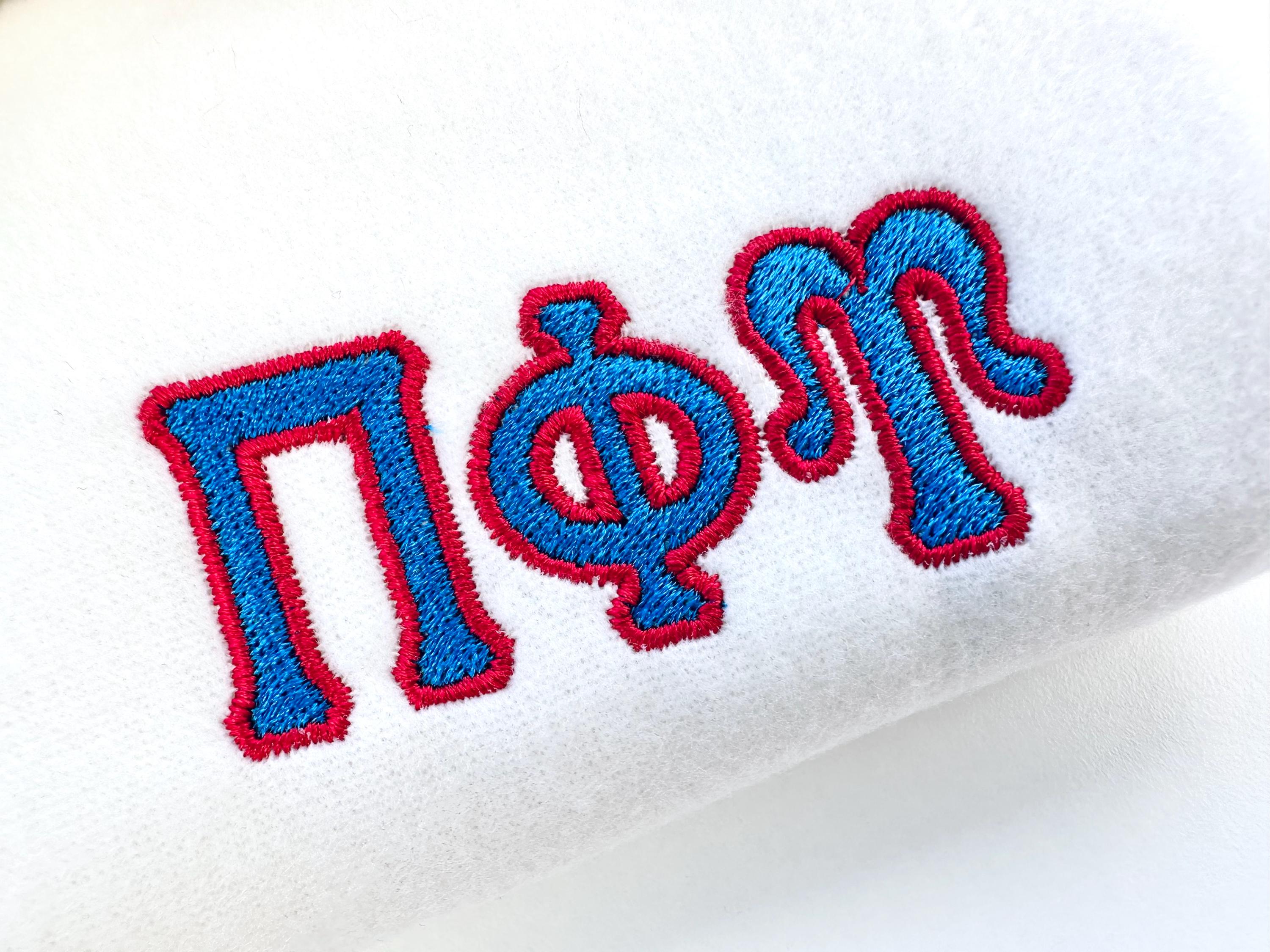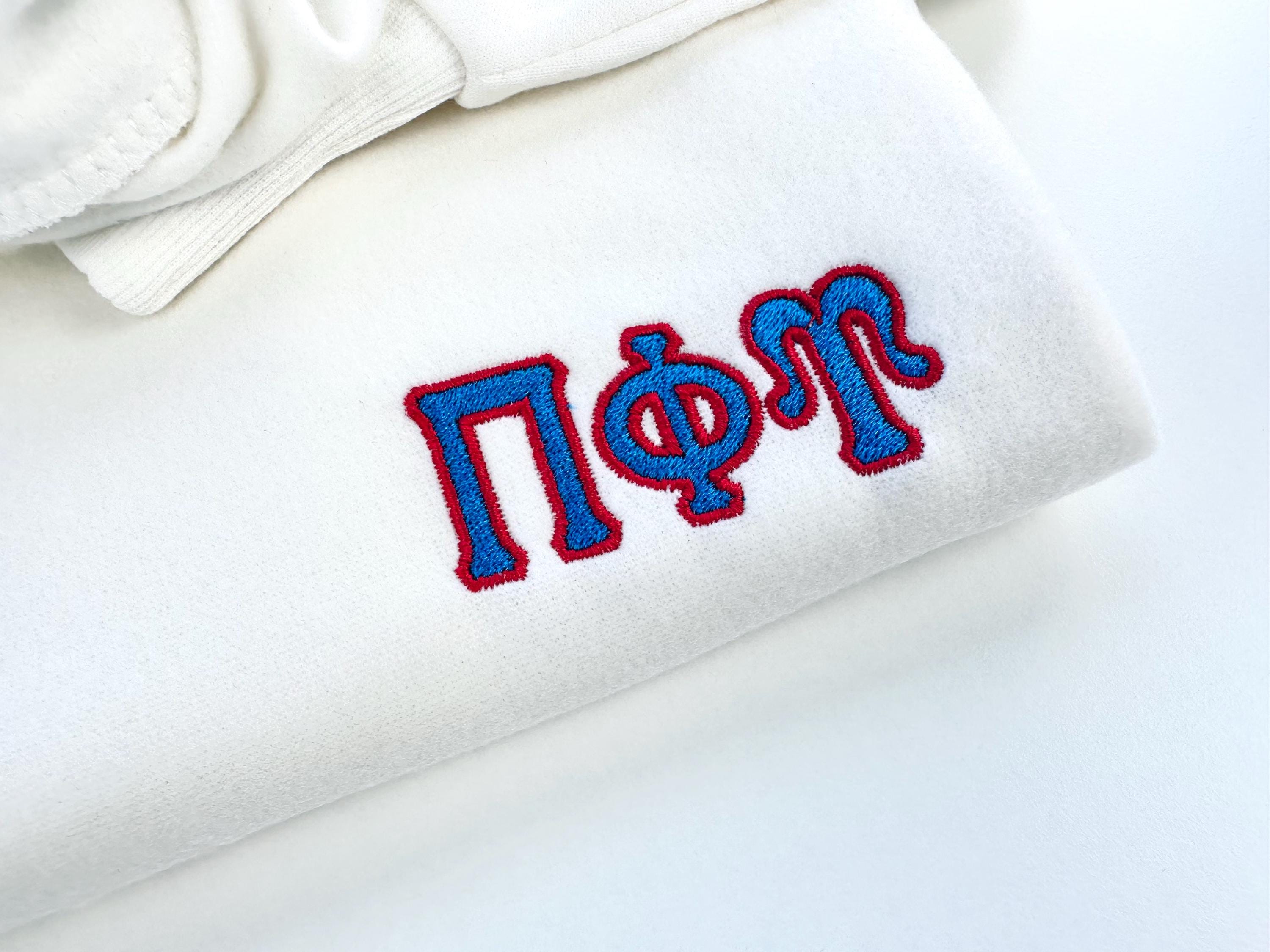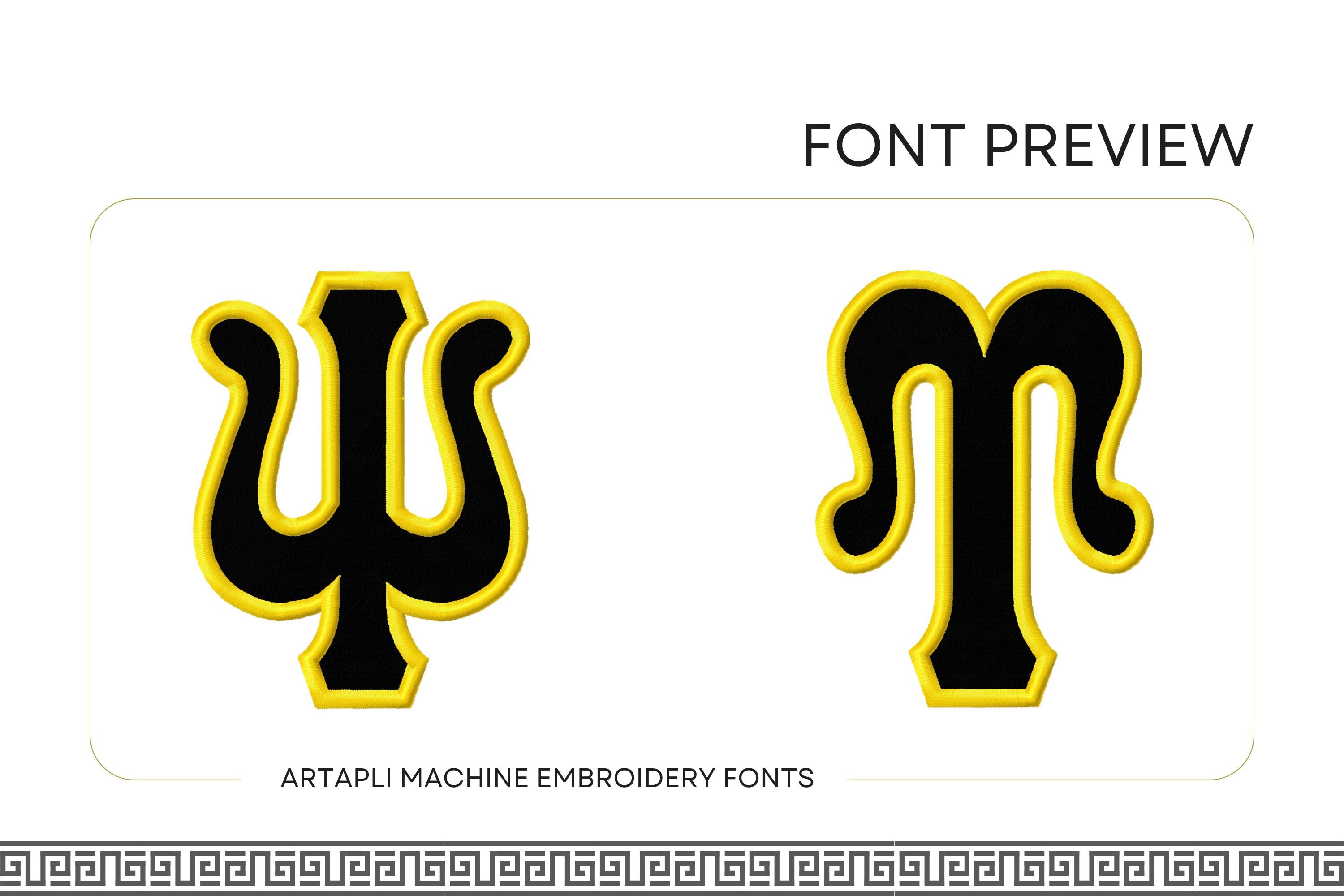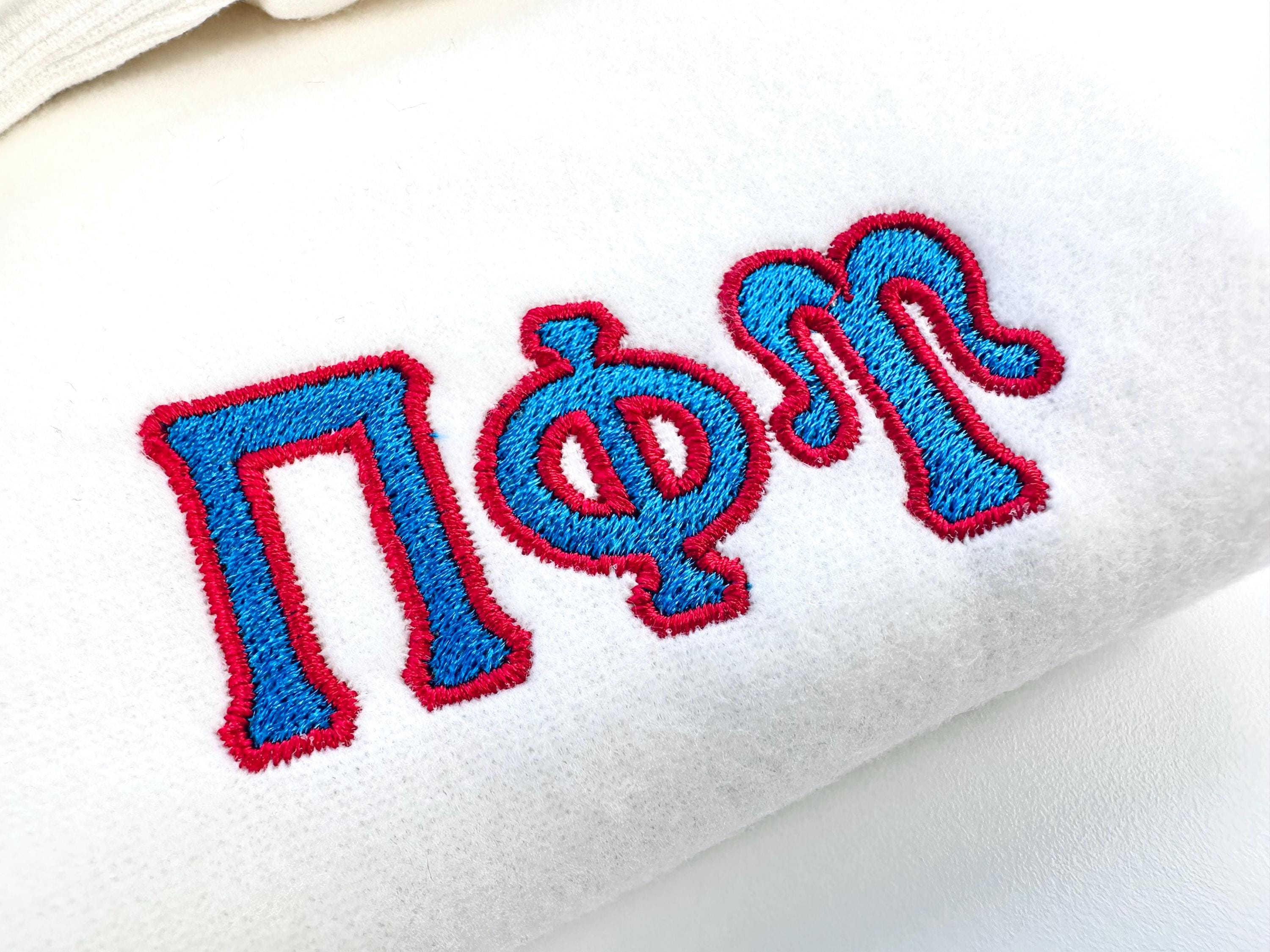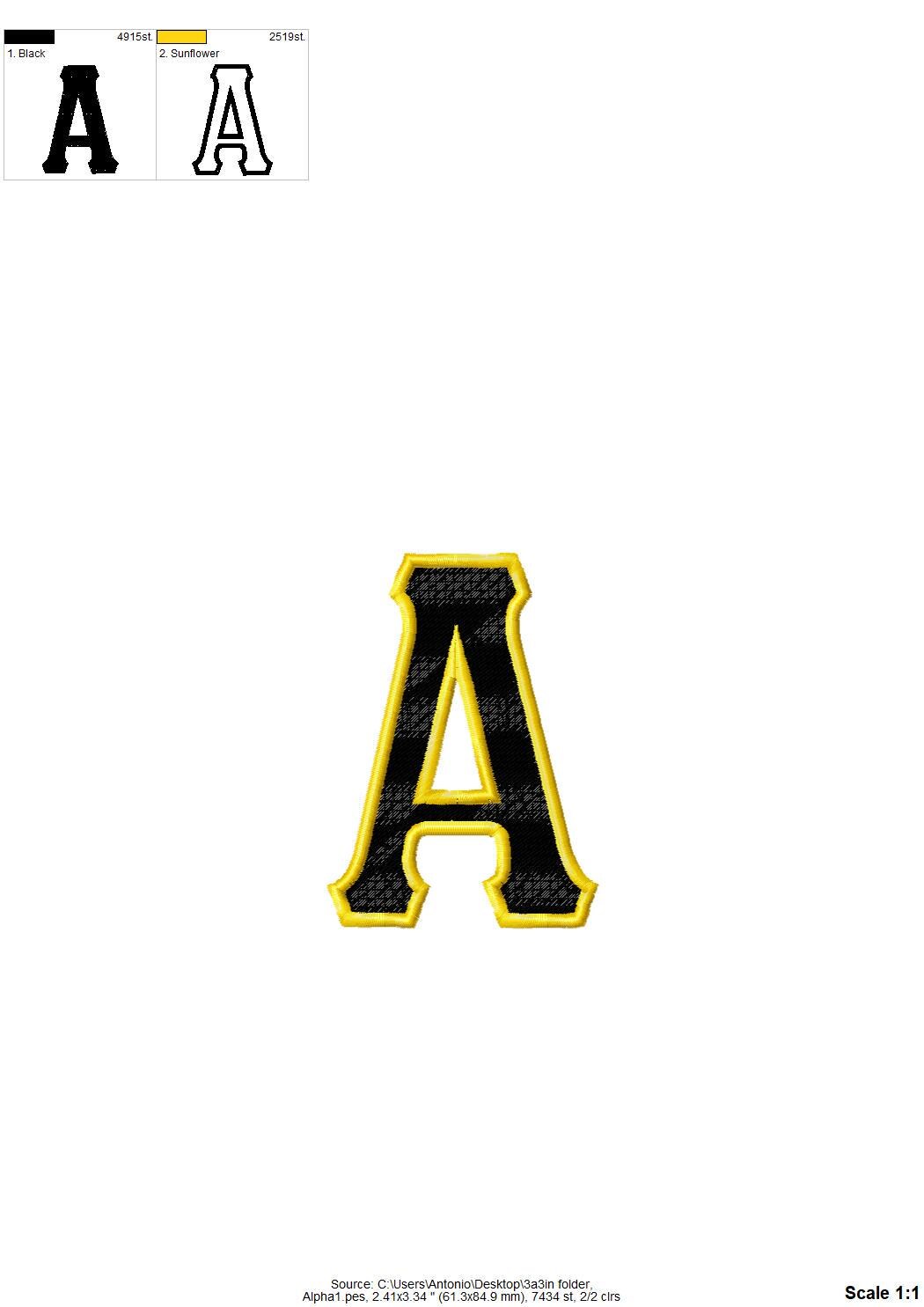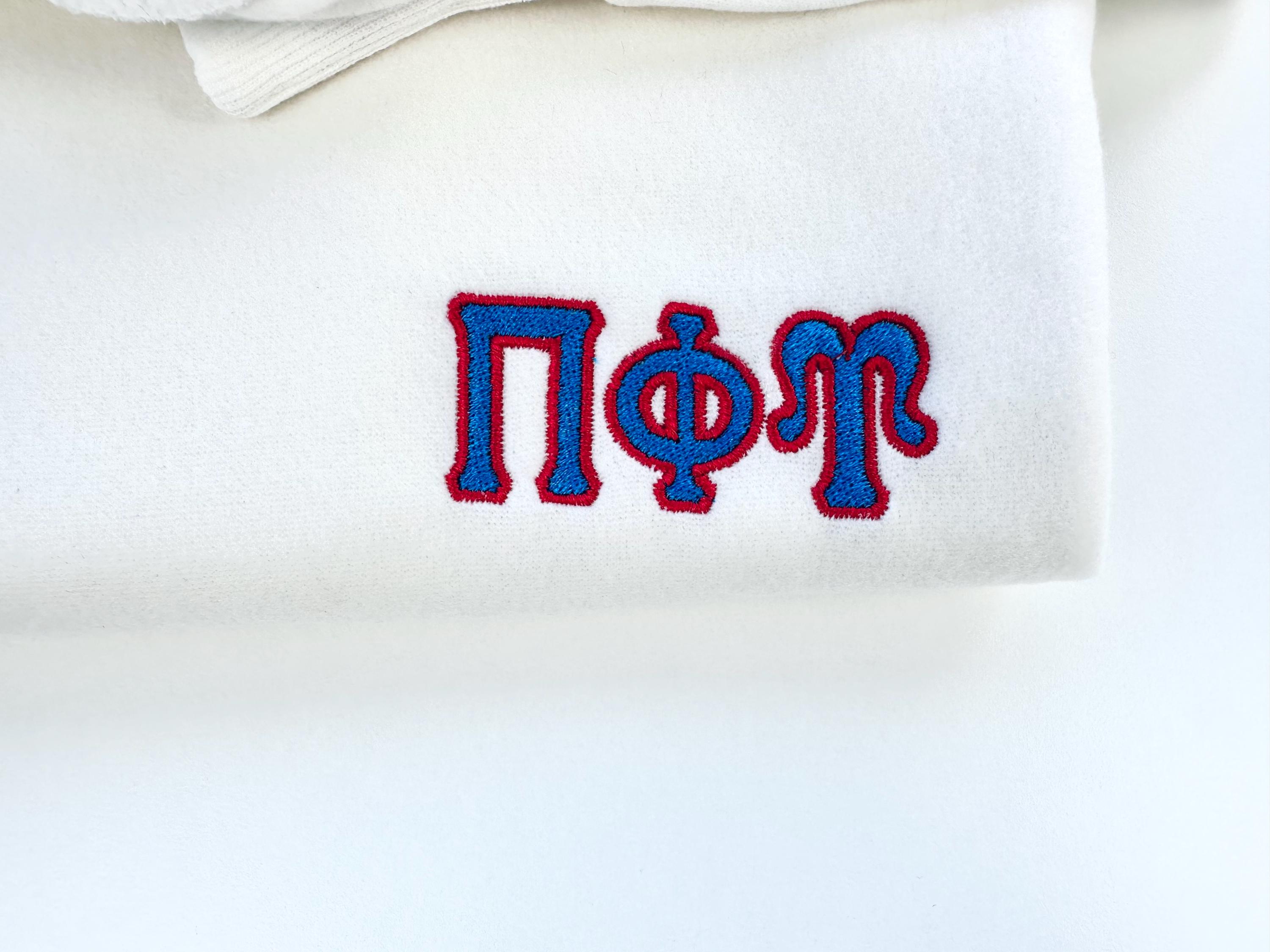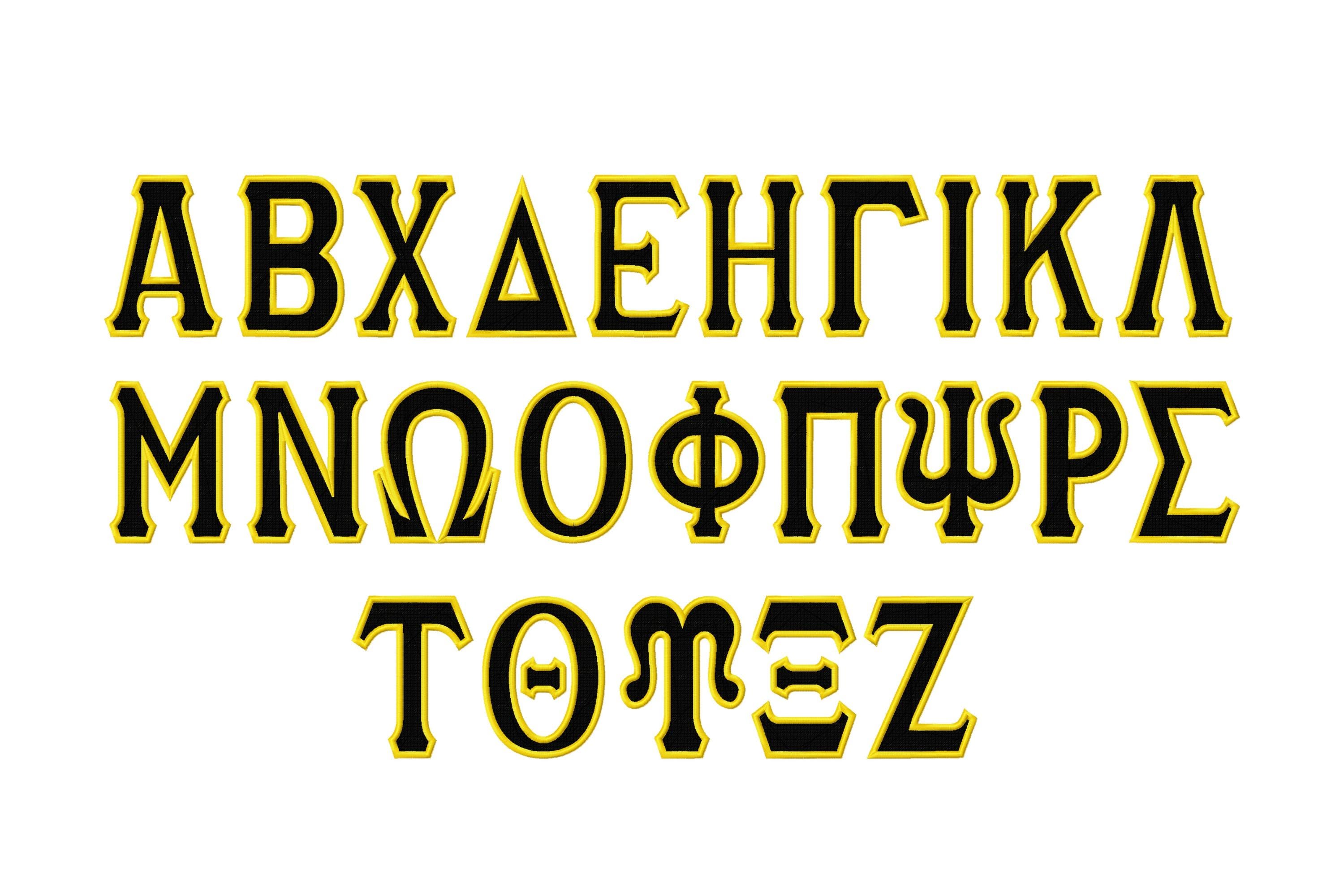
Fill stitch Tall Greek FONT alphabet sororities fraternities monogram fill stitch and outline machine embroidery designs sizes 2 up to 4.7 inches
Font is fill stitched and has a contrast (second color) finish outline